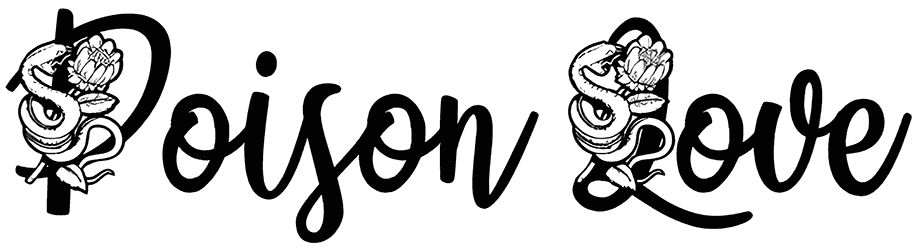
Poison Love Font
Give a precarious love vibe to your design with this love font to leave a lasting impression on your viewers. This decorative font doesn’t cover numbers and punctuation marks, but it will be a cool choice for your theater poster. The Poison Love font is going to add a mysterious and unique mood to your project.